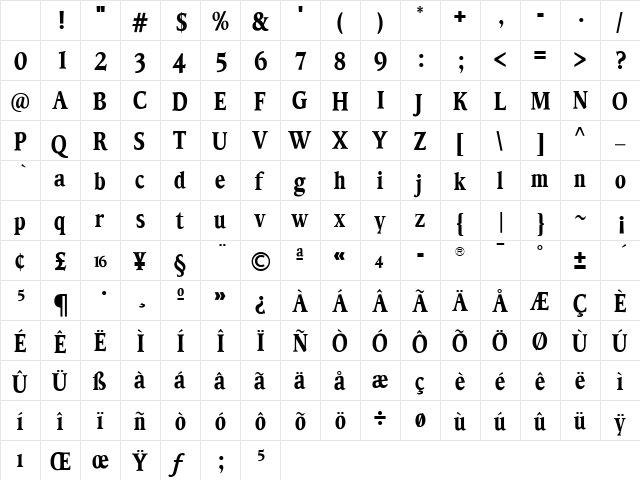
Complete TFHabitatCond Bold glyph index. Displaying only characters natively supported by TFHabitatCond Bold font.
TFHabitatCond is a composed and adaptable typeface that performs quietly and consistently across a wide range of design contexts. Its bold stroke weight gives it real presence on the page. Its narrow stance lets it pack a punch even in space-constrained designs.